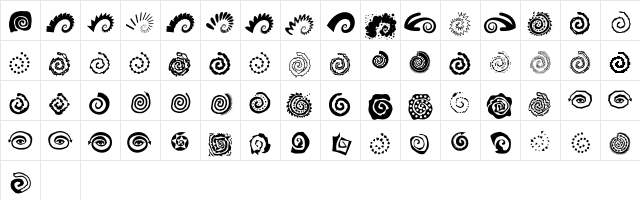
Complete AleOrnamentsSpiratoLL Regular glyph index. Displaying only characters natively supported by AleOrnamentsSpiratoLL Regular font.
AleOrnamentsSpiratoLL is built around its visual character rather than neutral utility - its distinctive forms are designed to make an impression at display sizes.
Font Pairing: Pair with a clean neutral sans-serif for body copy to let AleOrnamentsSpiratoLL's character lead without overwhelming the composition.
Pro Tip: Use AleOrnamentsSpiratoLL exclusively at display sizes - it was designed to be seen, not read at length. Let a neutral companion handle body copy.